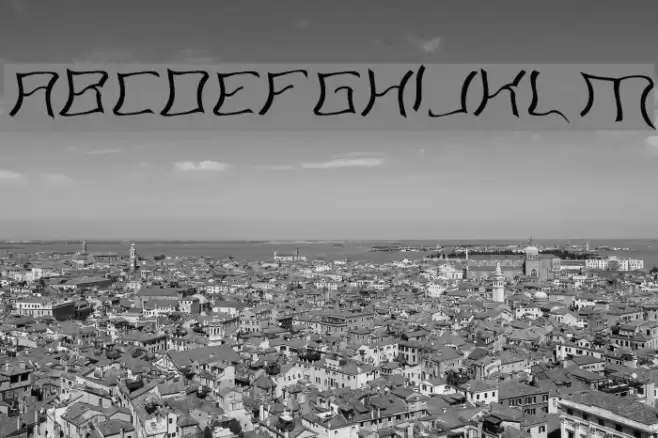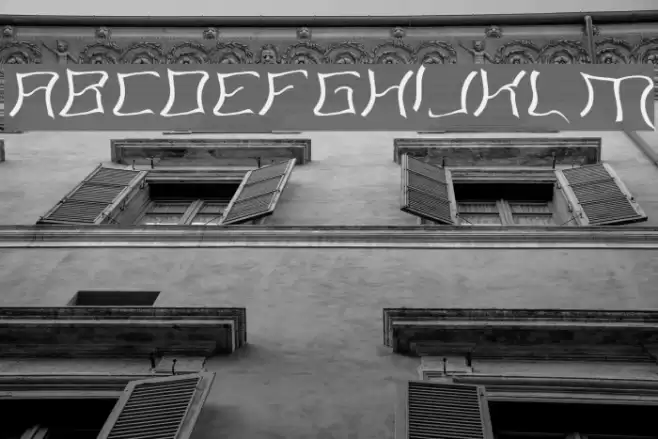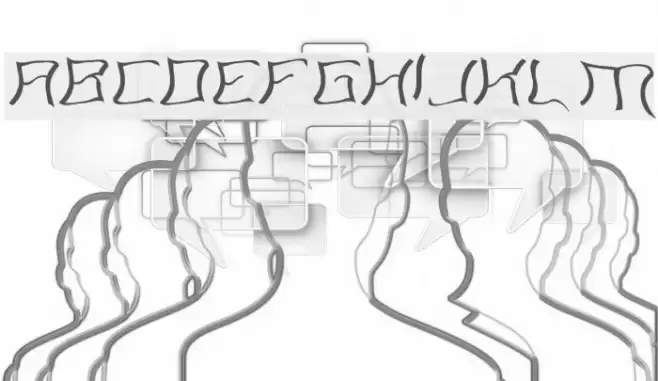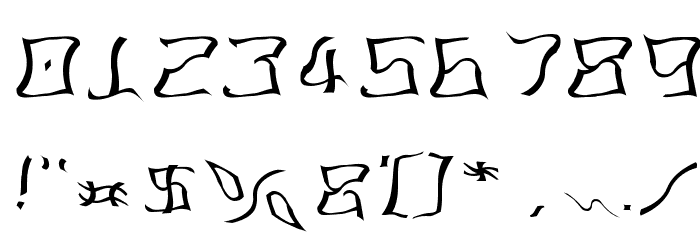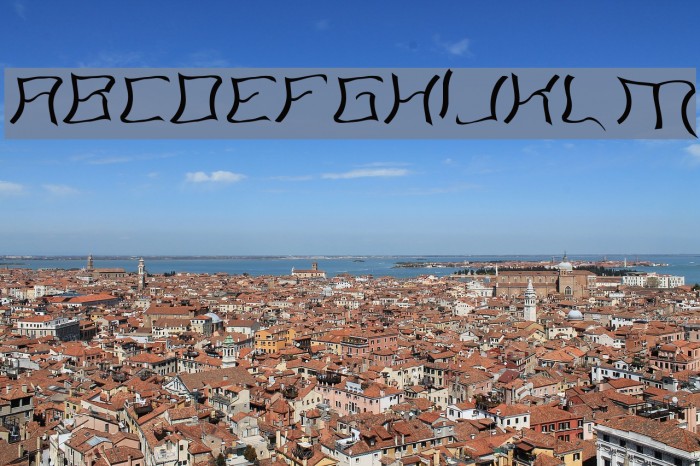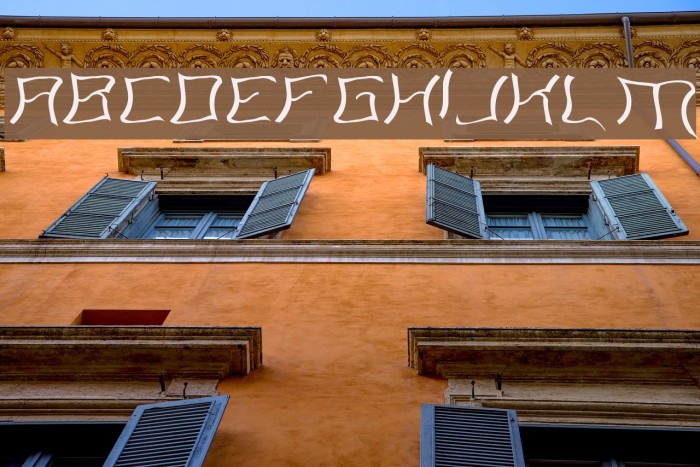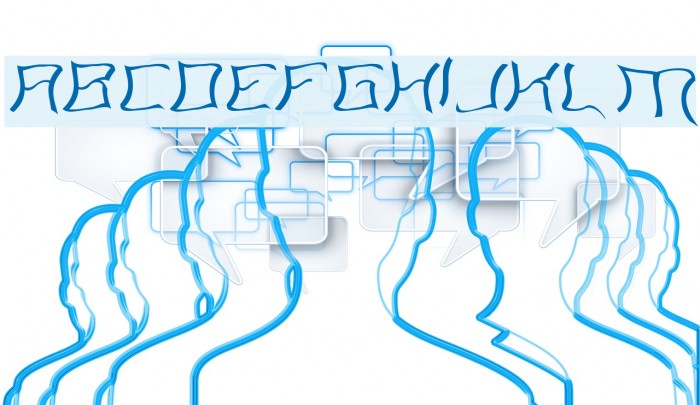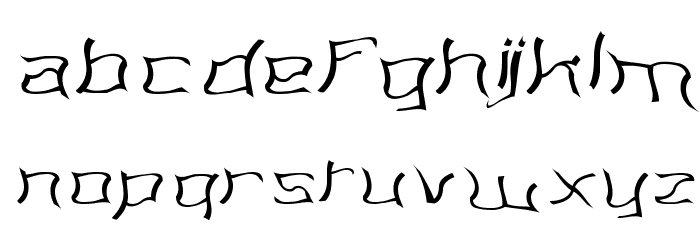
Martians spacewarped my dad Font
Martians spacewarped my dad Description
This font features a unique, otherworldly design with an irregular, warped appearance that gives it a futuristic and alien-like feel. The characters are crafted with sharp, angular lines and unexpected curves, creating a sense of movement and distortion. The uppercase and lowercase letters maintain a consistent style, with each character appearing as if it has been twisted or bent. Numbers and special characters follow the same design principles, adding to the font's cohesive and distinctive look. This font's unconventional style makes it stand out, offering a visually intriguing option for creative projects.
A futuristic, warped font with sharp, angular lines and a unique, alien-like appearance from Broken fonts.
- Proposed Projects: Ideal for sci-fi themed projects, video game titles, movie posters, or any creative work that requires a futuristic or extraterrestrial aesthetic.
- Overall Style: Futuristic, Alien